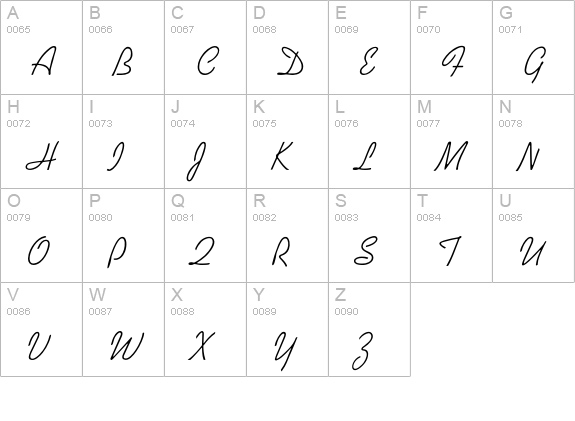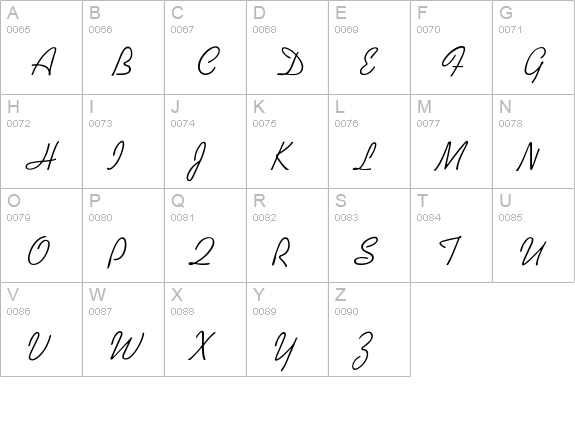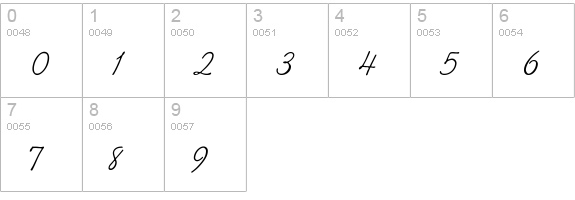
KaufmannScript Font Details
Introducing KaufmannScript, a beautifully crafted font that effortlessly combines elegance and sophistication. With its graceful lines and delicate curves, this font exudes a timeless charm that is perfect for any project seeking a touch of refinement. KaufmannScript was meticulously designed with attention to detail, ensuring every stroke and flourish is executed with precision. The result is a font that captures the essence of handwritten script, while still maintaining legibility and clarity. Whether you're designing wedding invitations, creating branding materials, or adding a touch of elegance to your website, KaufmannScript is the perfect choice. Its versatility allows it to be used in a variety of contexts, from formal events to casual designs, making it suitable for a wide range of projects. The best part? KaufmannScript is completely free! That's right, this stunning font is freely available to download at FontsMarket.com. Now, you can add a touch of sophistication to your designs without breaking the bank. So why wait? Download KaufmannScript today and elevate your projects to new levels of elegance. Embrace the timeless beauty of this font and watch as your designs come to life with its graceful presence. Don't miss out on this incredible opportunity to enhance your creative endeavors with a font that exudes elegance and charm. Get your hands on KaufmannScript and let your imagination soar.